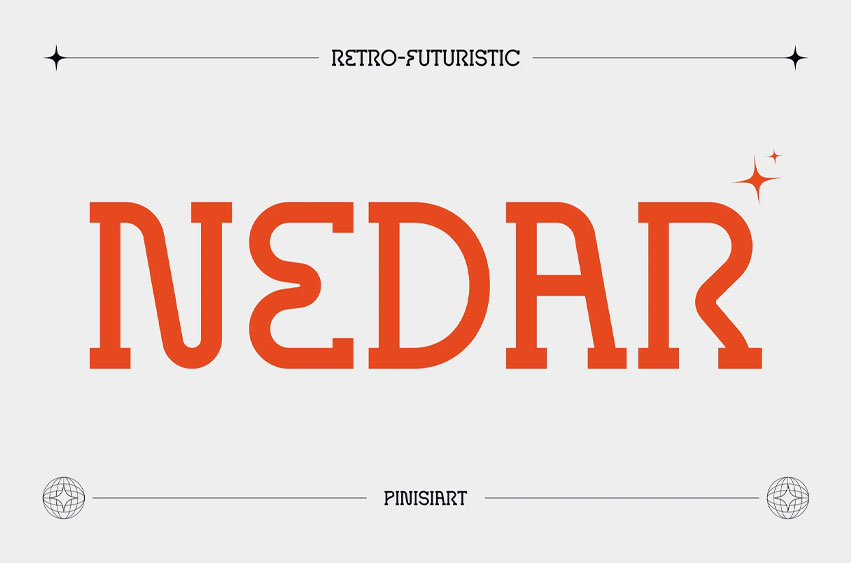
Nedar Font is a retro-futuristic display typeface designed with bold vertical strokes, geometric curves, and high-contrast serifs. Its expressive rhythm and analog-inspired details give it a distinctive presence, making it perfect for designers who want to blend nostalgic aesthetics with forward-thinking branding. The font feels energetic yet structured, ideal for projects that demand attention-grabbing headlines, editorial covers, and digital storytelling.
Whether you’re designing for tech summits, modern startups, lifestyle magazines, or digital campaigns, NEDAR delivers a visual punch that instantly connects with audiences. Its retro-inspired yet futuristic vibe makes it a versatile choice for branding, poster design, event promotions, app interfaces, and packaging. Use it to fast-forward your message into the spotlight while maintaining a sense of timeless character.
• Retro-futuristic vibe that stands out in any visual medium
• Bold lines & high-contrast strokes for impactful, memorable headlines
• Unique geometric flow with structured yet playful energy
• Perfect for branding, editorial spreads, posters, and digital interfaces
• Professional versatility: works equally well in print and digital spaces